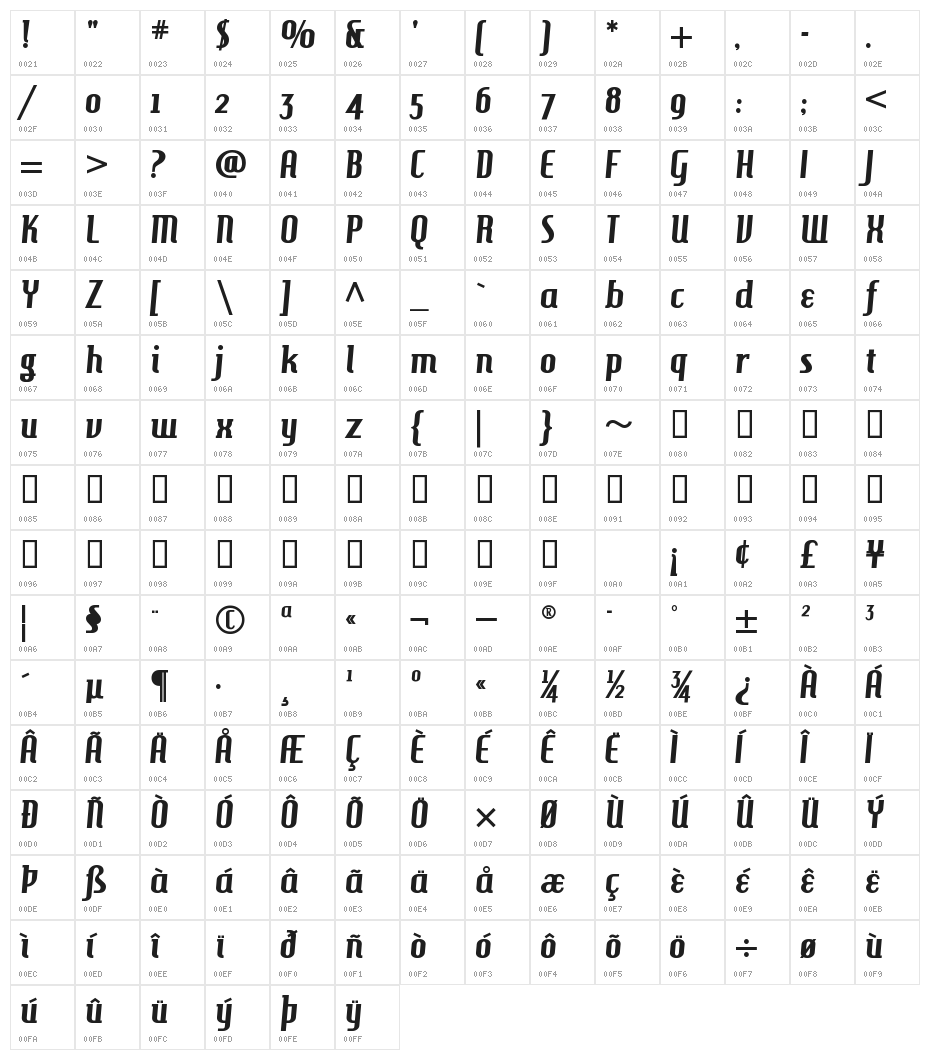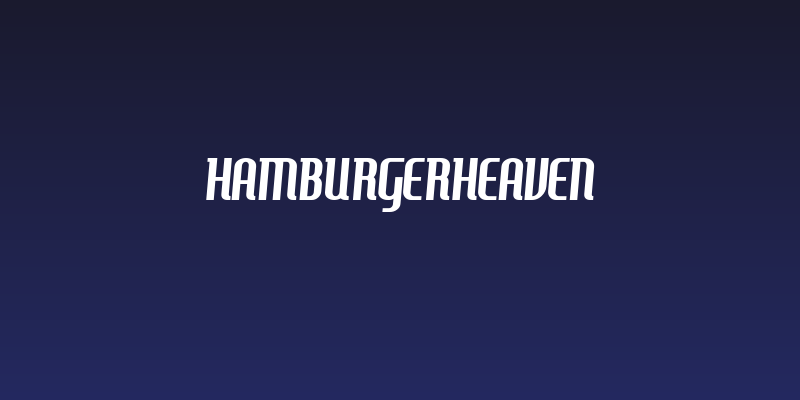
HamburgerHeaven Font
HamburgerHeaven Description
This font features a bold and dynamic style with a slight slant, giving it a sense of movement and energy. The characters are well-defined with a consistent stroke width, creating a uniform appearance across both uppercase and lowercase letters. The numerals and special characters maintain the same boldness, ensuring readability and visual impact. The font's design is modern yet retains a touch of classic elegance, making it versatile for various applications. Its unique character shapes, particularly the curved elements, add a distinctive flair that sets it apart from more traditional fonts.
| Proposed Projects | Ideal for branding, advertising, poster design, and headlines where a strong visual impact is desired. |